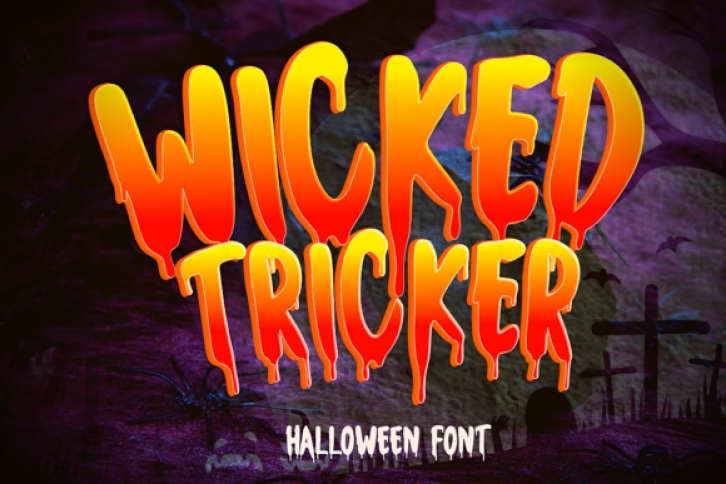
Wicked Tricker is an incredibly spooky and creepy display font. Add this font to your favorite creative Halloween themed ideas and notice how it makes them stand out!